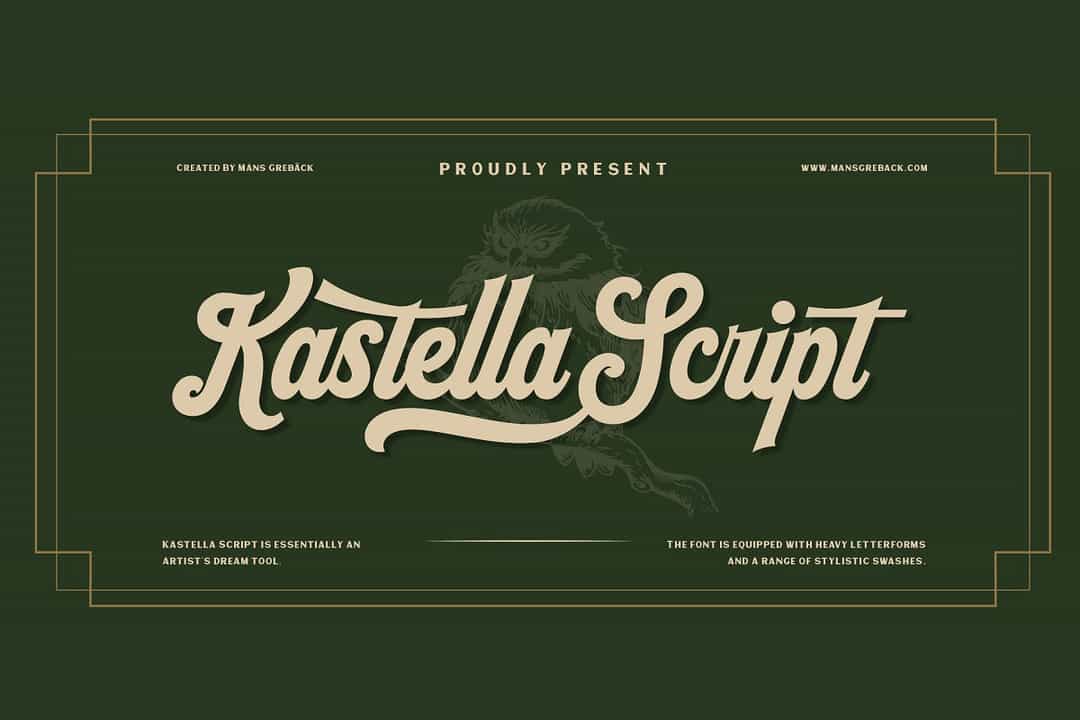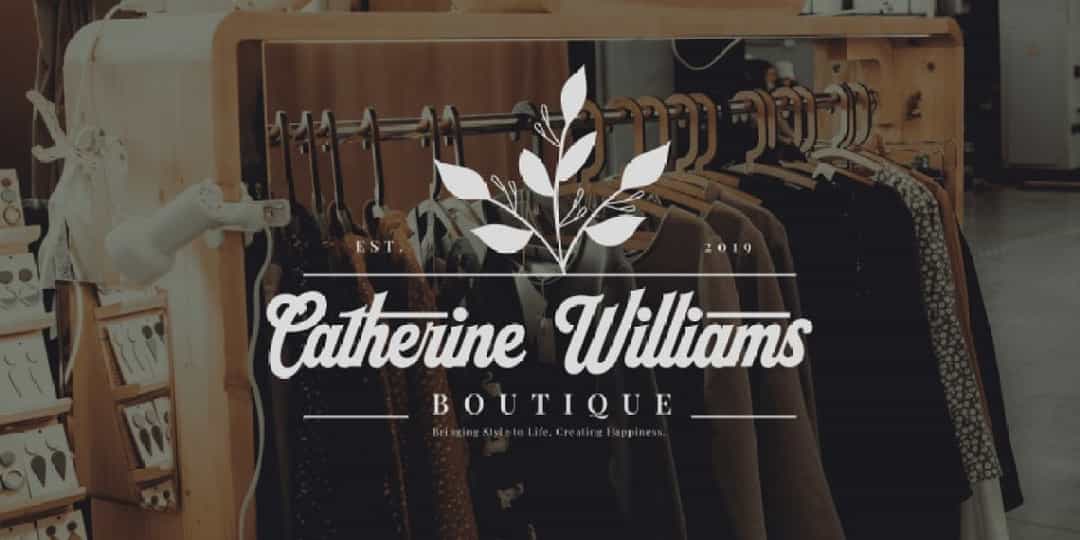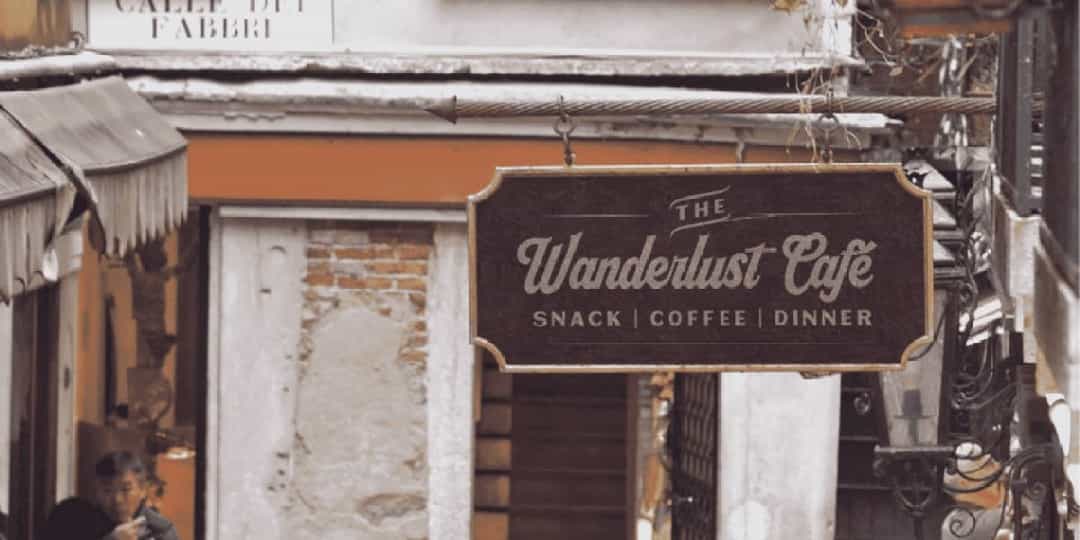
Kastella The Script Font is an invaluable art-making tool. Not only are you writing words; you are also creating visual narratives with these fonts – like finishing touches to an entire artwork! Not just words themselves; rather their narrative makes an impactful statement about who or what you are.